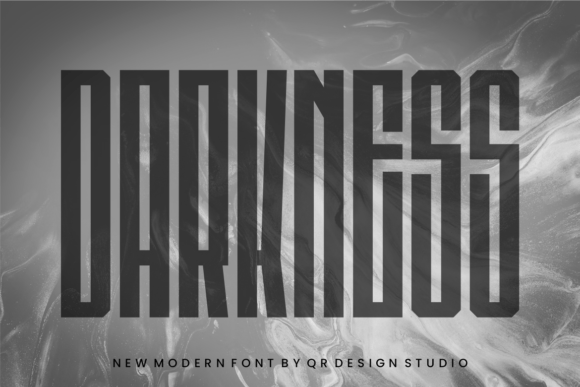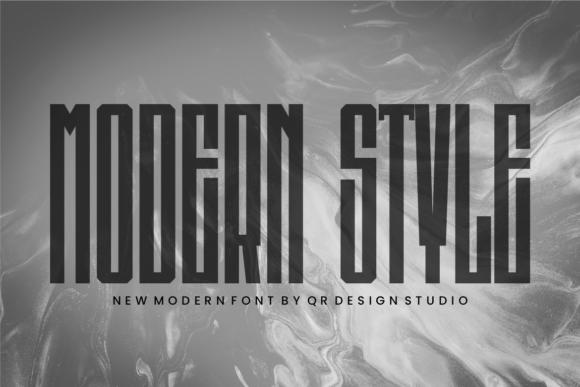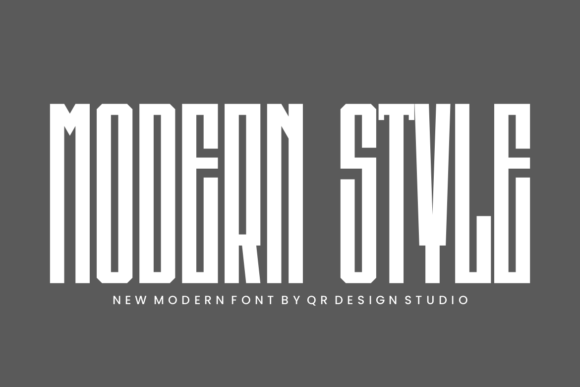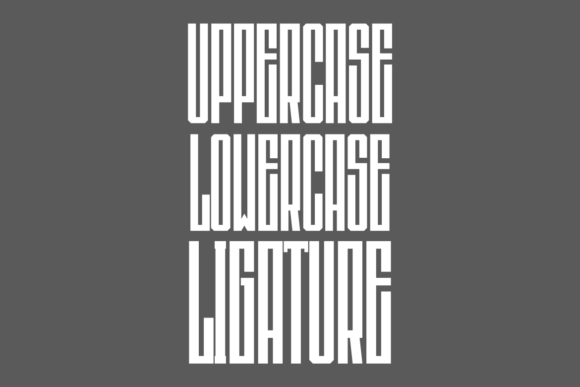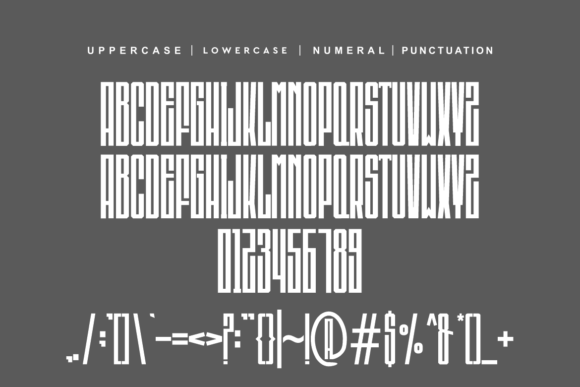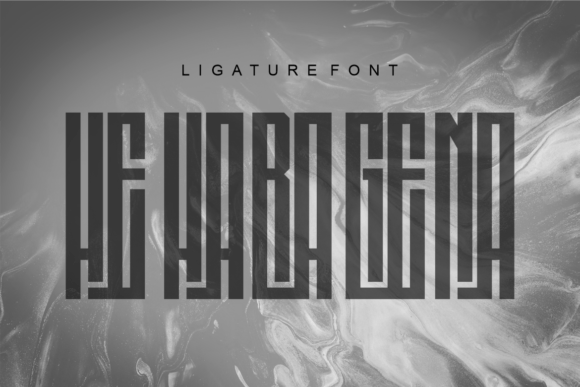
The Designer’s Delight: Unpacking the Bronanghenor Font
I’ll never forget the time I was working on a logo design project for a sports brand. I had a clear vision of what I wanted to create, but something was missing – the perfect font. I scoured the internet, tried out dozens of fonts, but none seemed to capture the bold and authentic vibe I was looking for. That’s when I stumbled upon the Bronanghenor font. It was love at first sight! 💡
In this article, I’ll share my experience with the Bronanghenor font, its features, and how to make the most of it in your design projects.
A First Impression: What Makes Bronanghenor Special
Bronanghenor is a bold and authentic display font that’s perfect for any branding project, from logos to t-shirt printing, sports, and more. Its versatility and wide range of applications make it a valuable addition to any designer’s toolkit.
What I Love About Bronanghenor ✨
- ✅ Bold and authentic look: Bronanghenor has a unique, eye-catching design that’s perfect for making a statement.
- ✅ Highly versatile: This font can be used in a wide range of contexts, from sports to fashion, and more.
- ✅ Ease of use: Bronanghenor is easy to read and works well in both digital and print formats.
- ✅ OpenType features: The font comes with a range of OpenType features, including glyphs and stylistic alternates, that allow for creative experimentation.
- ⚠️ Limited use in body text: Due to its bold nature, Bronanghenor may not be the best choice for lengthy body text. It’s better suited for headings and titles.
- ⚠️ Some kerning issues: As with any font, there may be some kerning issues, especially when using certain character combinations.
The Story Behind Bronanghenor: Designer Inspiration
The story behind Bronanghenor is one of creative experimentation. The font was designed by a team of typographers who sought to create a bold, authentic display font that would stand out in a crowded design landscape. Inspired by classic athletic typography and modern sans-serif fonts, Bronanghenor was crafted to be versatile, legible, and attention-grabbing.
Q: What is the best use case for Bronanghenor?
A: Bronanghenor is best suited for bold, attention-grabbing headings and titles, such as logos, t-shirt printing, sports branding, and more.
Q: Can I use Bronanghenor for body text?
A: While Bronanghenor can be used for body text, it’s not recommended due to its bold nature. It’s better suited for headings and titles.